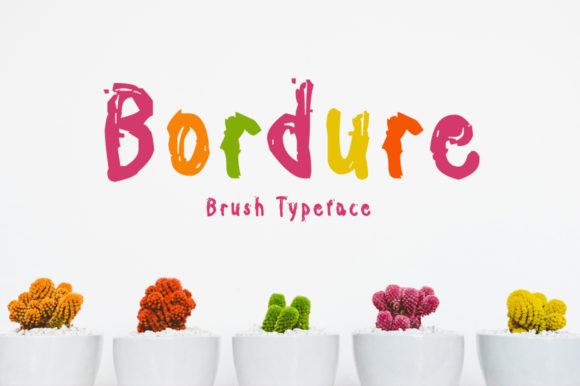
The Ultimate Guide to Bordure Font: A Fun and Playful Brush Font
An Honest Review of Bordure Font
As a designer, I’m always on the lookout for fonts that can elevate my projects and make them stand out. Bordure font is a relatively new addition to the font family, but it’s quickly become a favorite. Here’s what I love about it:
- ✨ Fun and playful style that’s perfect for creative projects
- ✅ Highly versatile and can be used for various design applications, from stationery to website headers
- 🔥 Unique brush strokes that add a personal touch to any design
- 👍 Excellent for use in logos, t-shirts, papers, print designs, photo frames, flyers, music covers, posters, and more!
While Bordure font is amazing, it’s not perfect. Here are a few quirks to keep in mind:
- ⚠️ Limited language support, so it’s best suited for English or languages with similar character sets
- Experiment with OpenType features, such as glyphs and stylistic alternates, to add more personality to your design
The Story Behind Bordure Font
Bordure font was created with the intention of bringing a touch of playfulness and creativity to the world of typography. Its designer, inspired by the art of hand-lettering and brush calligraphy, crafted a font that’s both unique and versatile. With Bordure font, you can add a personal touch to your designs and make them stand out from the crowd.
| Font Name | Bordure Font |
| Author | Spanking Fonts |
| What is Bordure font best suited for? | Bordure font is perfect for creative projects, such as stationery, logos, t-shirts, papers, print designs, website headers, photo frames, flyers, music covers, posters, and more! |
| Does Bordure font support OpenType features? | Yes, Bordure font supports OpenType features, including glyphs and stylistic alternates. |